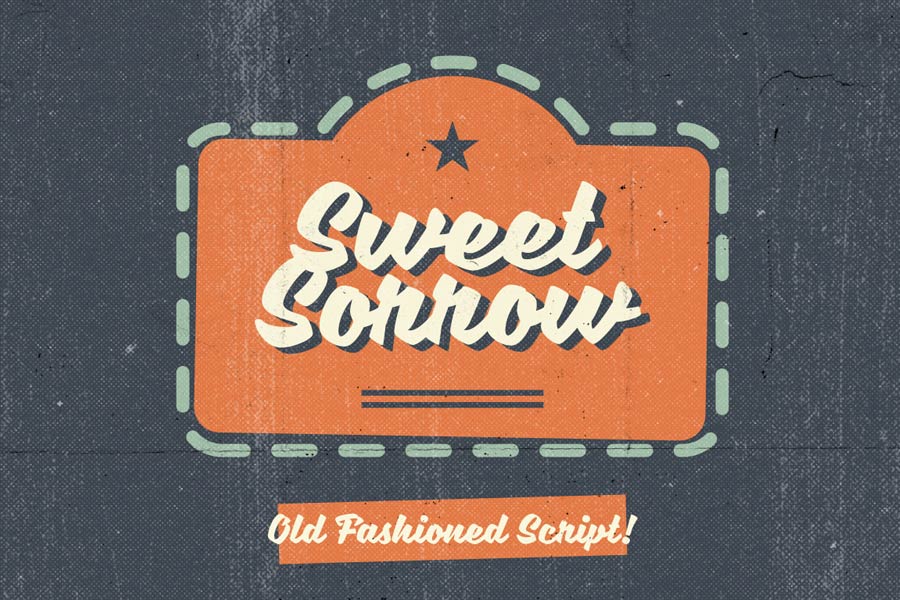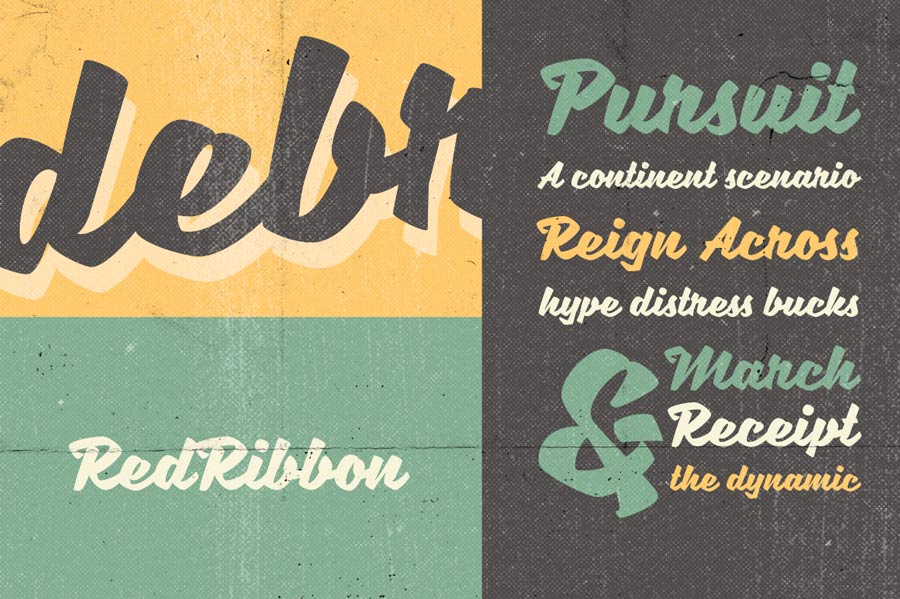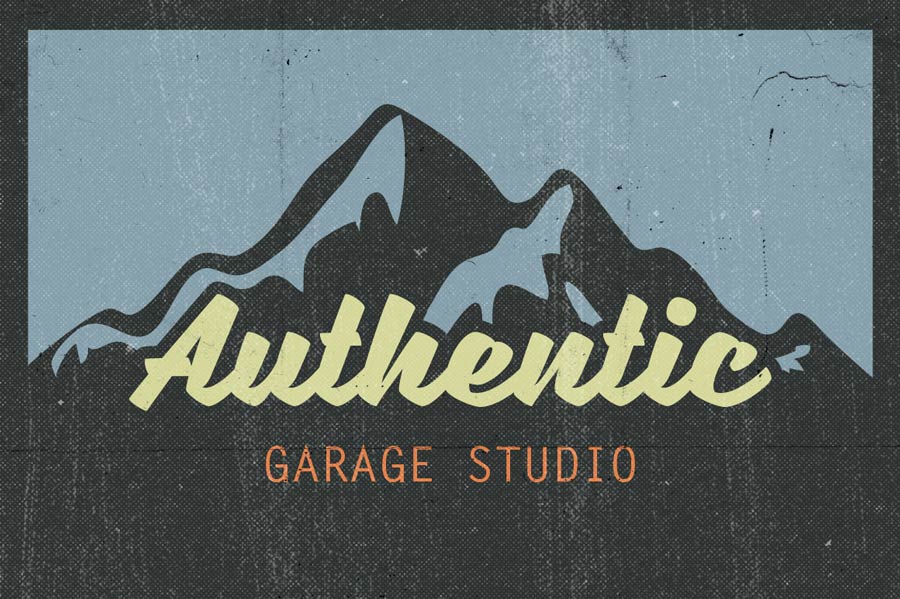
Sweet Sorrow is the free script font you need to bring out the old-school coolness in your designs. It’s suitable to be applied to signages for second-hand shops, t-shirts designs, retro logotypes and more. Sweet Sorrow was inspired by 1950s signage, the designer combined the essence with modern dynamic curves to bring out the aesthetic impression of retro design style.
- Designer: Artimasa Studio
- Category: Script